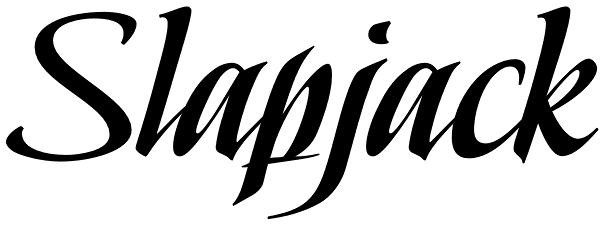
Slapjack
Slapjack is a unique rendition of a broad-edged calligraphic script ideal for packaging, signage, and titling. Its presence is strikingly bold and rhythmic, yet stylishly elegant. With a glyph count well over 700, Slapjack is a fully-featured pro...